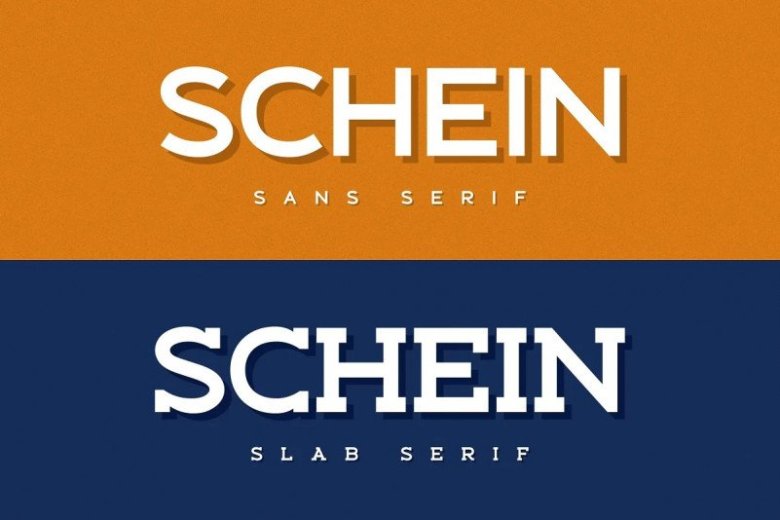
Schein Font
This is font which helping to create futuristic hi-tech atmosphere and style. It is good looking as header and as text both. Inspired by the famous minimalist logo and perfect for the purposes of designing templates, brochures, videos, advertising branding, logos and more.